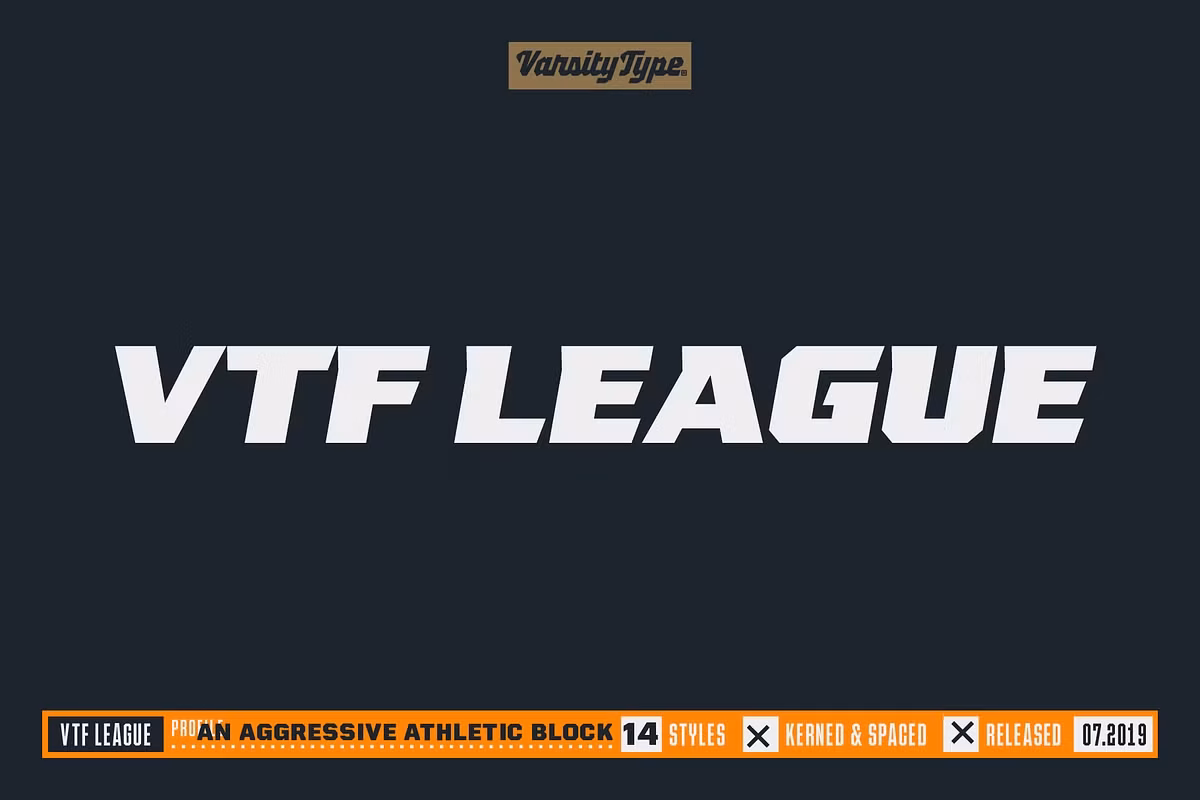
Step into the spotlight with VTF League Font Free Download — a bold and energetic typeface built for champions. Designed with strength and precision in mind, this font is perfect for sports branding, event posters, athletic apparel, gaming content, and dynamic headlines that demand attention.
VTF League brings that competitive edge with powerful letterforms, solid geometry, and strong visual presence. It includes uppercase characters, numerals, punctuation, and multilingual support — giving designers full flexibility for impactful visual storytelling across platforms.